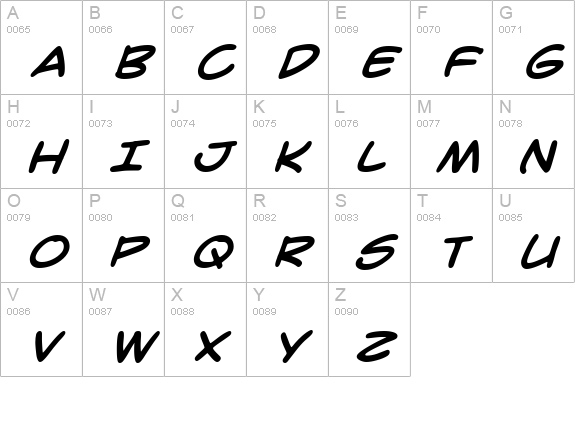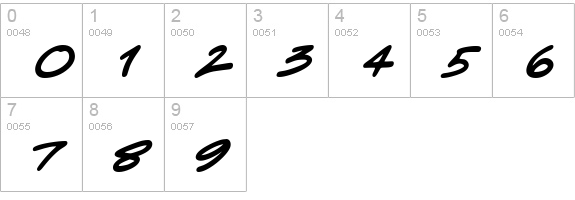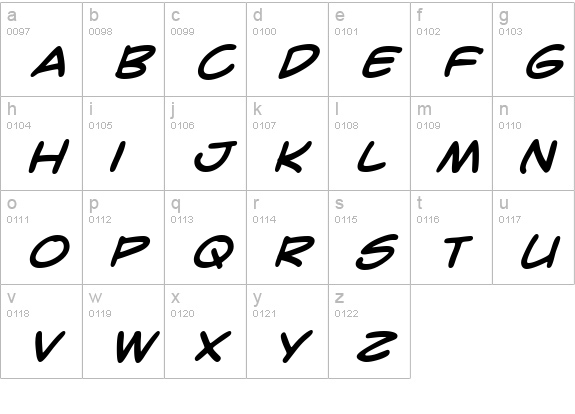
CrimeFighter BB Bold Font Details
CrimeFighter BB Bold is a strong, high-contrast variant in the CrimeFighter typeface family \xE2\x80\x94 well suited to headlines, attention-grabbing titles, and strong calls-to-action.
CrimeFighter BB Bold font is a bold and impactful typeface perfect for adding a touch of mystery and intrigue to your designs. With its strong and commanding presence, this font is ideal for creating eye-catching headlines, posters, and logos that demand attention. The sharp edges and bold lines of CrimeFighter BB Bold exude a sense of authority and strength, making it the perfect choice for projects that require a bold and confident aesthetic. Best of all, CrimeFighter BB Bold font is available for free download at FontsMarket.com, allowing you to add this powerful font to your collection without breaking the bank. Whether you're working on a crime-themed project or simply looking to make a bold statement with your typography, CrimeFighter BB Bold is sure to make a lasting impression. Download it today and unleash the power of this striking typeface in your designs.